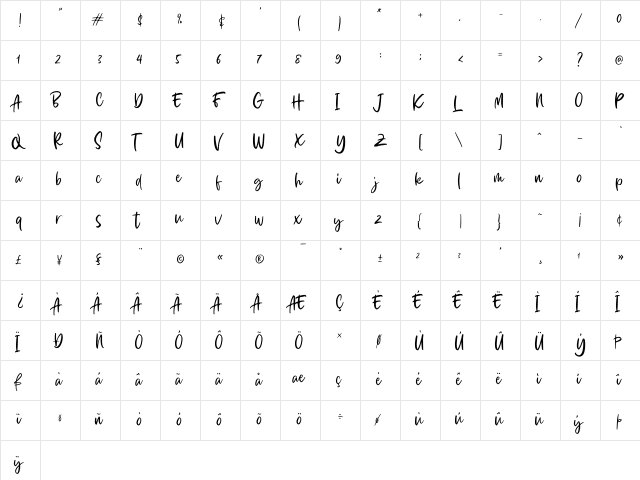
Bella Millies Personal Use Regular
Design Context for Bella Millies Personal Use Typeface
Bella Millies Personal Use is a composed and adaptable typeface that performs quietly and consistently across a wide range of design contexts.